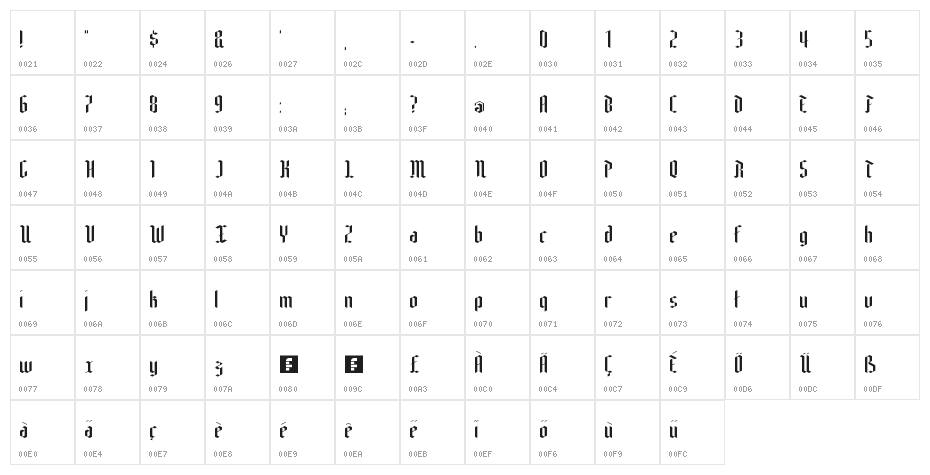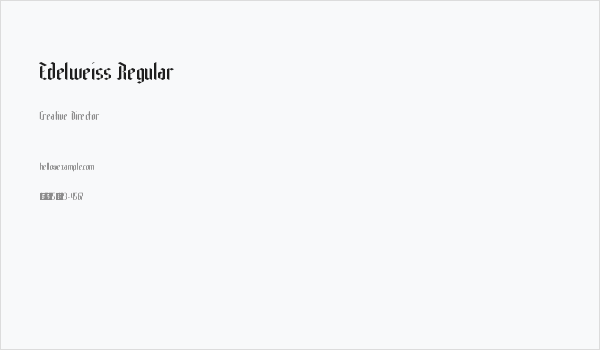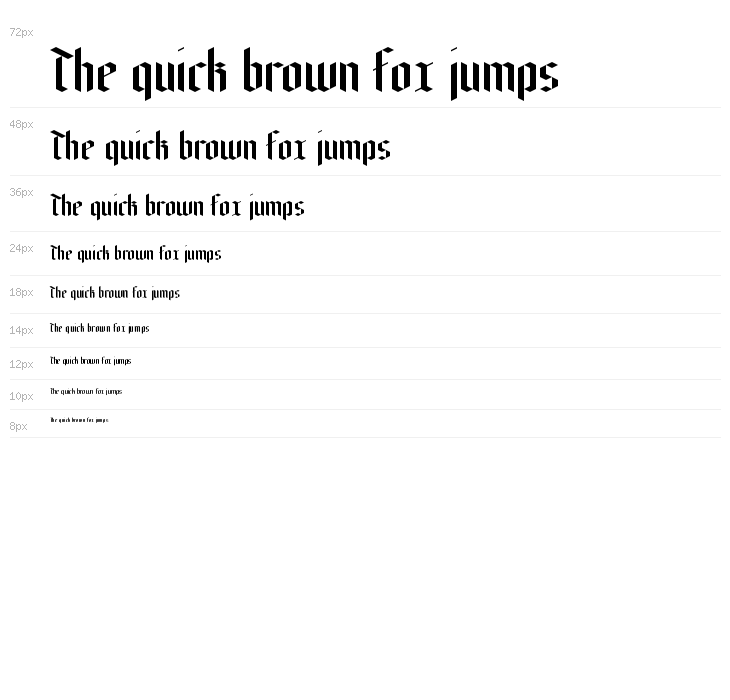
Edelweiss Regular Font
Edelweiss Regular Description
This font exhibits a distinct blackletter style, characterized by its sharp, angular lines and intricate detailing. The uppercase letters are bold and commanding, with a strong vertical emphasis that is typical of traditional blackletter fonts. The lowercase letters maintain the same angular aesthetic, providing a cohesive look across all characters. Numerals and special characters are designed with the same attention to detail, ensuring consistency throughout. This font's historical and ornate appearance makes it ideal for projects that require a touch of elegance and tradition.
Overall StyleVintage
Use CaseLogos, Headlines, Decorative text
Proposed ProjectsSuitable for vintage-themed designs, formal invitations, certificates, and branding that requires a historical touch.